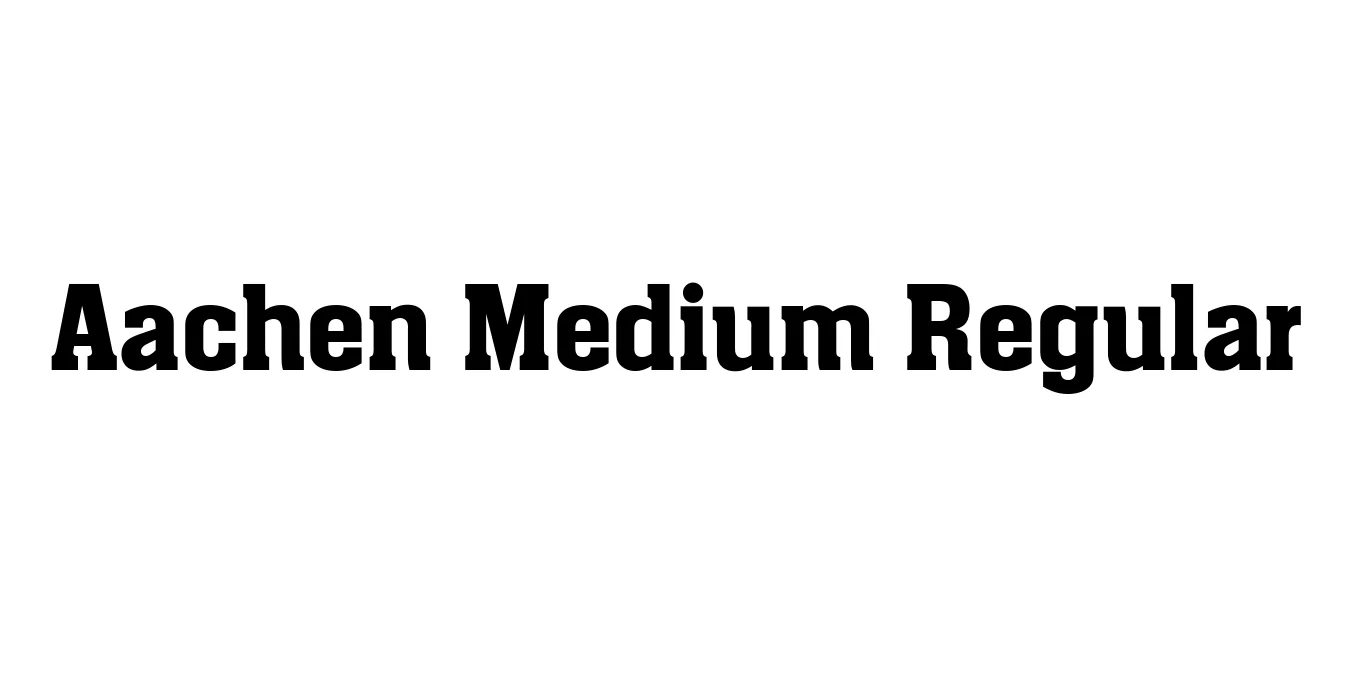
Aachen Medium Regular
Designed by Colin Brignall and Alan Meeks
| Category | Slab Serif |
| Designer | Colin Brignall and Alan Meeks |
Aachen Medium Regular was originally designed in 1969 by Colin Brignall for the Letraset library. It is widely regarded as one of the most influential slab-serif display fonts of the late 20th century. The typeface is characterized by its heavy, squared-off slabs and short ascenders and descenders, which create a dense, powerful typographic block that commands attention in any layout.
The family was later expanded by Alan Meeks to include more versatile weights like the Aachen Medium. Its design bridges the gap between traditional geometric slab serifs and industrial, athletic-inspired lettering. Because of its robust construction and high readability at large sizes, it has become a go-to choice for sports branding, collegiate apparel, and impactful editorial headlines that require a sense of strength and stability.
Aachen Medium Regular Best Uses
Excellent for team logos and athletic jersey numbering.
High-impact titles for magazines and newspapers.
Bold presence makes it perfect for event promotion and announcements.
Popular choice for collegiate-style hoodies and streetwear.